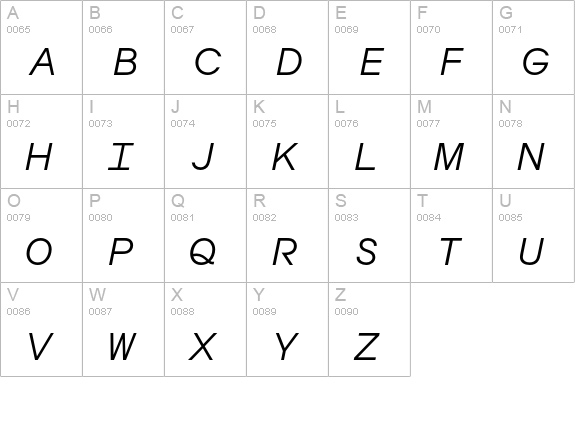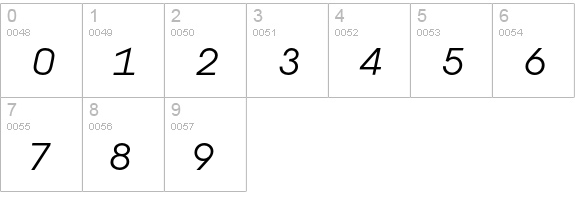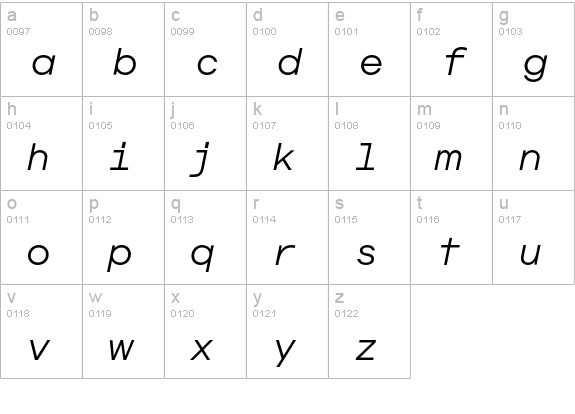
AvantGardeMonoEF-LightIta Font Details
AvantGardeMonoEF-LightIta is a sleek and modern font that exudes sophistication and elegance. Its light italic style adds a touch of uniqueness, making it perfect for projects that require a contemporary and refined look. This font is versatile and can be used for a variety of design purposes, such as branding, editorial design, and web content. The best part is that AvantGardeMonoEF-LightIta is free to download at FontsMarket.com, allowing you to access this high-quality typeface without any cost. Whether you're a designer looking to enhance your projects or a business owner seeking a distinctive font for your branding, AvantGardeMonoEF-LightIta is a great choice that won't break the bank. Download it today and elevate your designs with this elegant and stylish font.